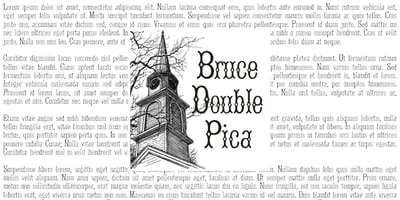
Bruce Double Pica Font
Bruce Double Pica Font is a distinguished and powerful serif typeface that harks back to the classic letterpress and wood type printing of yesteryear. Its robust, often slightly condensed forms and strong serifs give it an undeniable vintage authority, making it an exceptional choice for projects aiming to convey heritage, authenticity, and a commanding presence. Imagine it perfect for traditional newspaper headlines, vintage book titles, historical documentary graphics, strong corporate branding with a classic edge, artisanal product packaging, and impactful event posters with a retro flair. This font excels in environments where a sense of established quality, enduring reliability, and a bold, legible statement are paramount. It’s particularly effective for conveying tradition, gravitas, and an unmistakable handcrafted character, ensuring your message stands out with an authoritative and timeless appeal.
What makes Bruce Double Pica Font truly exciting is its ability to seamlessly blend the rich history of printing with modern design sensibilities. It captures the honest, tactile feel of original movable type, with subtle irregularities that add to its authentic charm. This font isn't just about displaying text; it's about telling a story of craftsmanship and enduring legacy, injecting your designs with a sense of robust artistry and historical depth. It has a powerful ability to feel both incredibly grounded and surprisingly versatile, making it an ideal tool for designers who want their work to convey strength, reliability, and strong visual impact. Bruce Double Pica Font empowers brands and creatives to project an image of dependable heritage and classic design.
The Bruce Double Pica Font family often focuses on delivering its distinctive display style with optimal impact and character, reflecting its origins in large-format printing. You'll typically find it available in a strong, singular weight that best showcases its unique design elements and sturdy build. While it might not feature a wide range of weights or conventional italic styles, some versions could include stylistic alternatives for certain characters or ligatures that further enhance its vintage and handcrafted appearance, allowing for even more customized typographic compositions. The comprehensive character set generally covers standard Latin characters, numbers, and a selection of punctuation, ensuring that Bruce Double Pica Font is suitable for a wide array of creative and commercial applications where a bold and distinctive statement is desired. Its memorable and forceful presence ensures that any project featuring Bruce Double Pica Font will leave a strong, lasting impression.